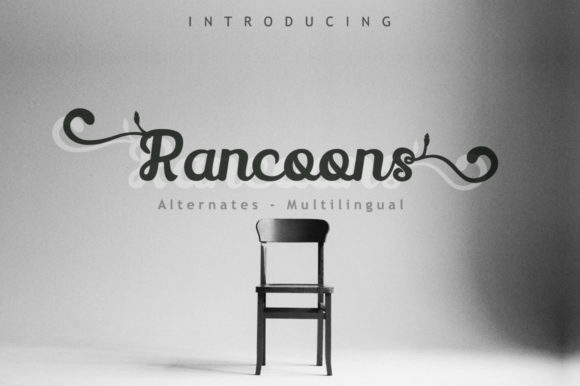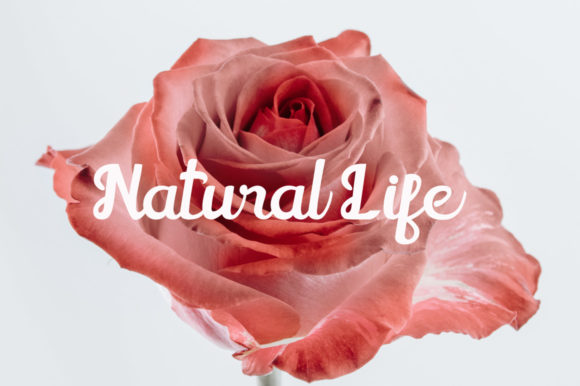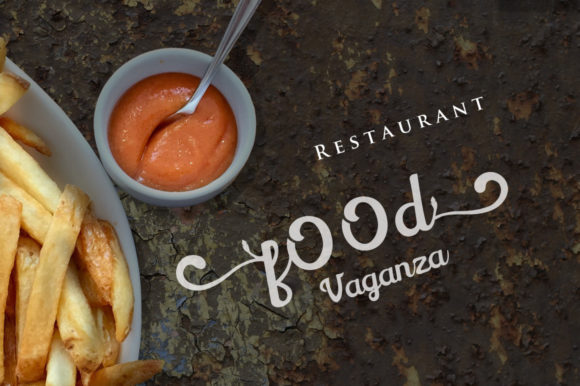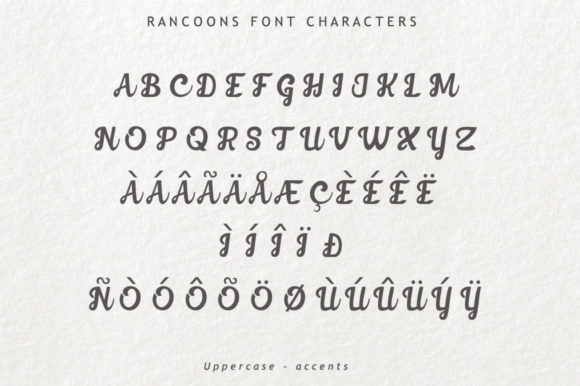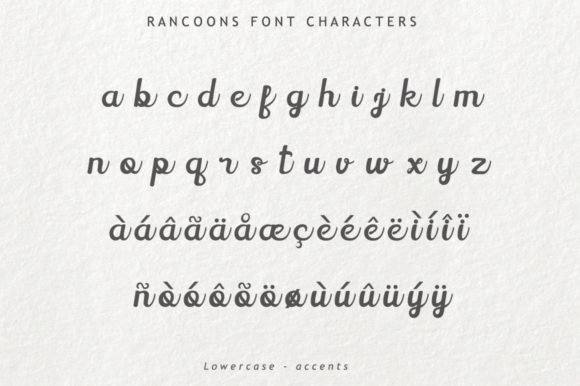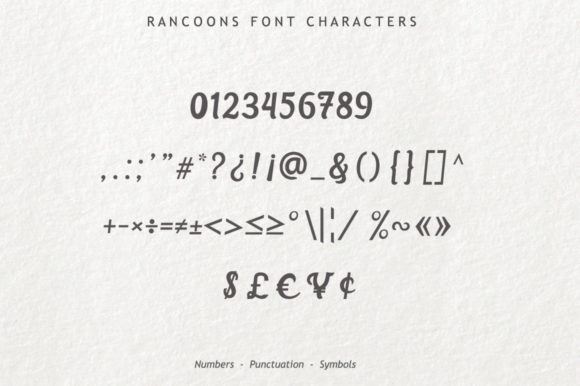
Rancoons Font
About Rancoons Font
Rancoons is a gorgeous and playful script font that will deliver an outstanding font experience. Get inspired by its unique charm!